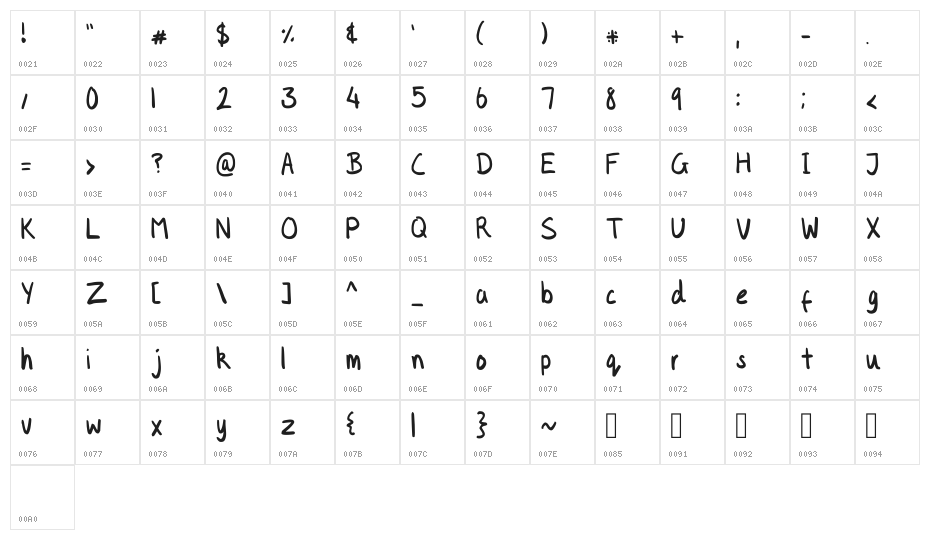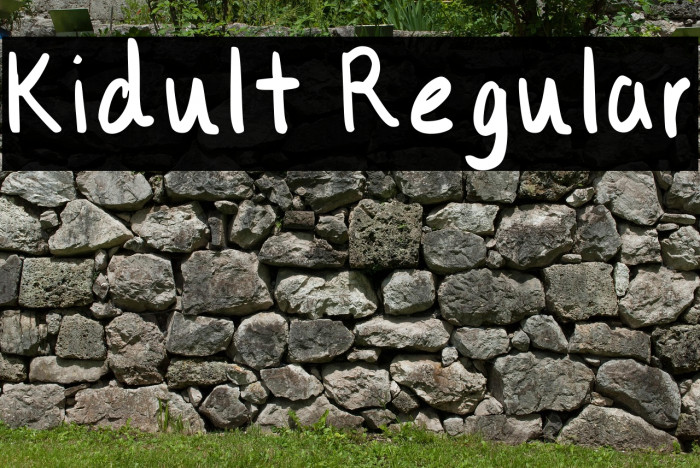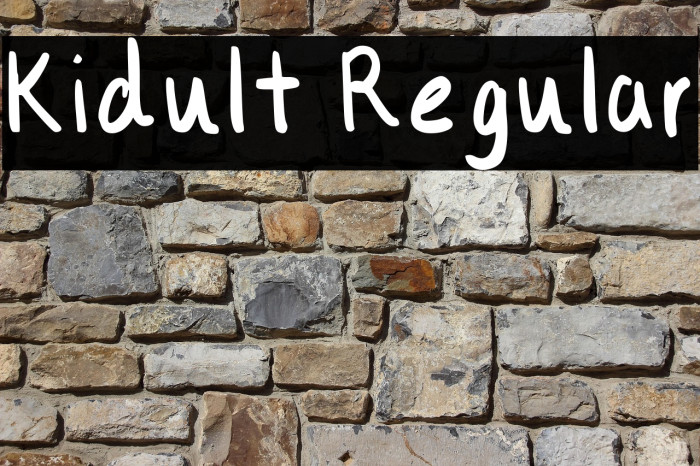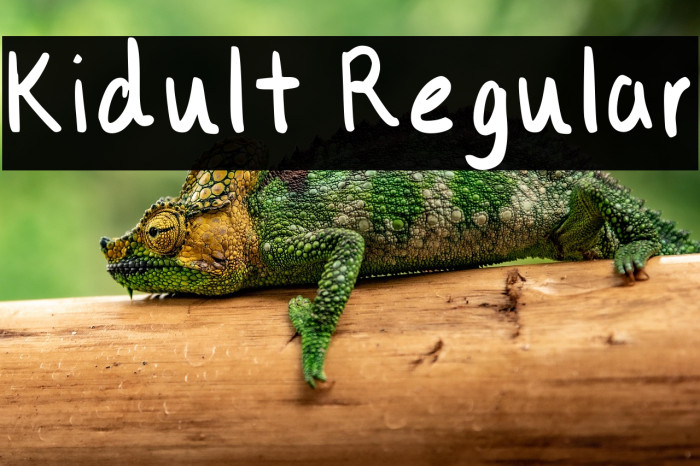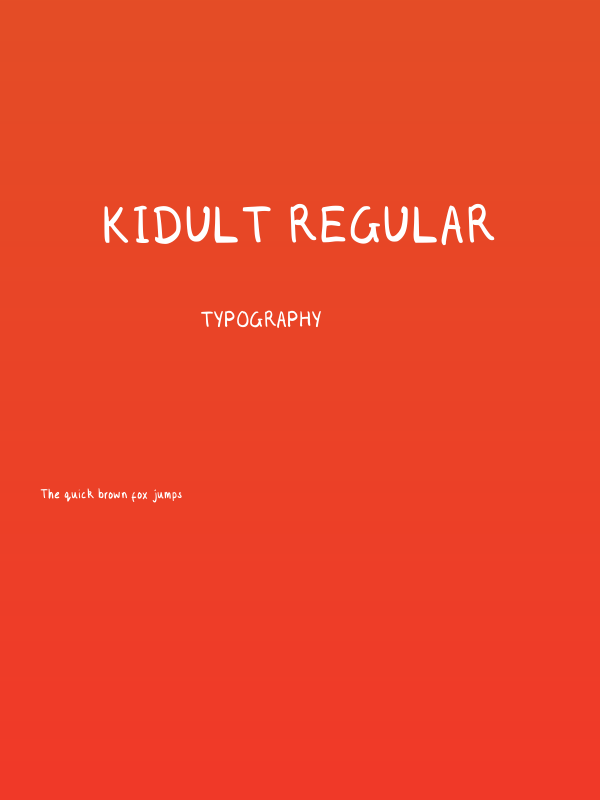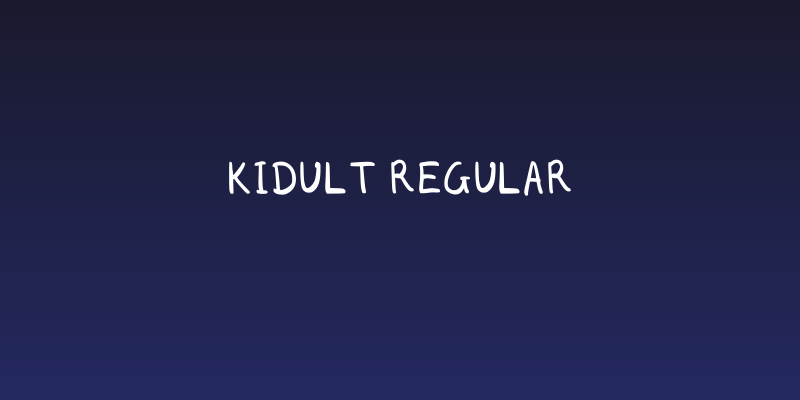
Kidult Regular Font
Kidult Regular Description
A playful, handwritten font with a casual and informal style, featuring rounded edges and a slightly uneven baseline.
| Overall Style | Casual, Playful |
| Use Case | Headlines, Informal text, Children's materials |
| Proposed Projects | Children's books, casual invitations, playful branding. |